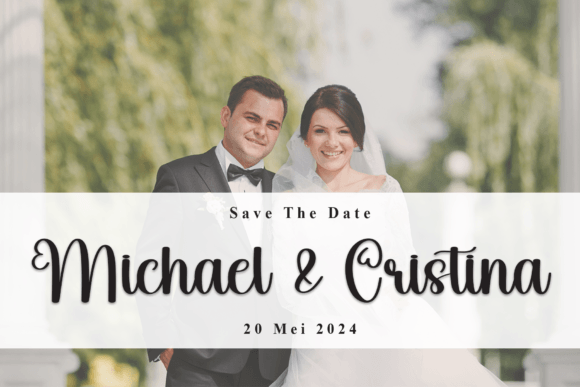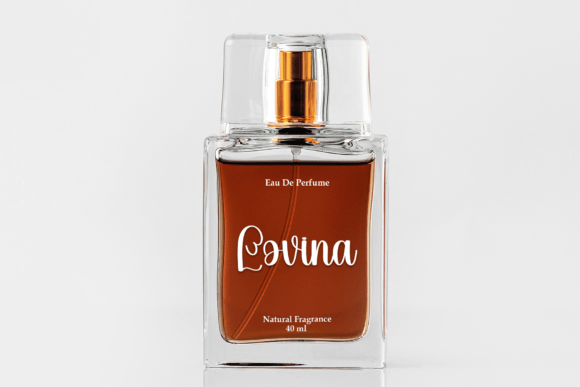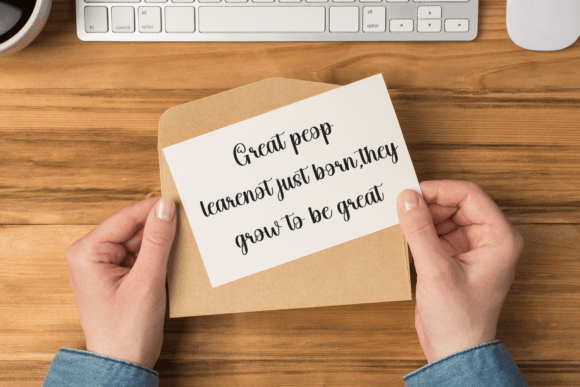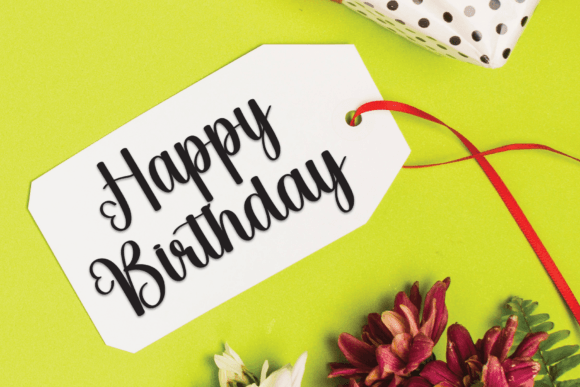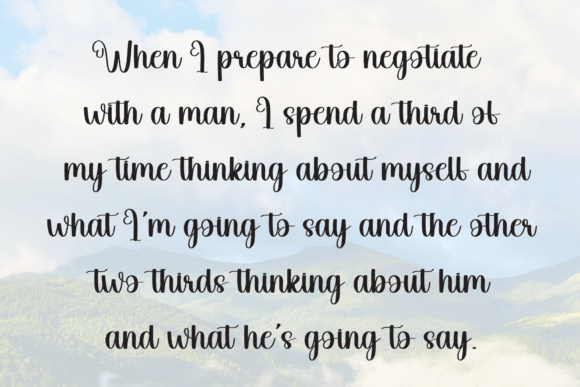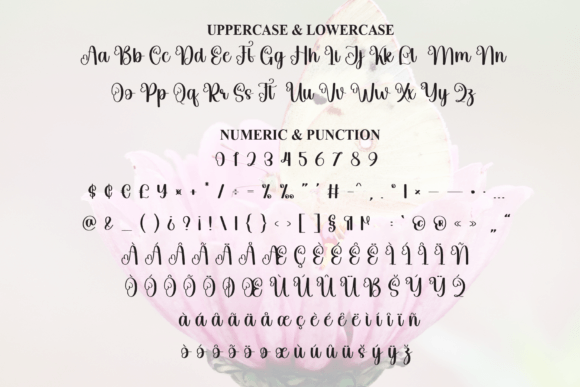
The Delightful Charm of Handwritten Fonts
Have you ever been stuck in a creative rut, staring at a blank page, searching for the perfect font to bring your design to life? We’ve all been there. But then, something magical happens – you stumble upon a font that speaks to your soul, and suddenly, the words flow effortlessly onto the page. For designers, discovering a new font can be a game-changer, and today, we’re excited to introduce you to the Baby Butterfly Font, a charming handwritten typeface that’s sure to captivate your heart.
This delightful font is perfect for adding a playful touch to your designs, whether it’s a wedding invitation, a heartfelt card, or a social media post. The Baby Butterfly Font’s friendly and cute appeal makes it an invaluable asset for designers who want to elevate their message while preserving an elegant whimsy. With its unique charm, this font is sure to bring a smile to your face and inspire your creativity.
Baby Butterfly Font Key Features
- Unique Characteristics: This font features a whimsical and playful design with delicate, hand-drawn elements and a mix of uppercase and lowercase letters.
Baby Butterfly Font Review
Overall, I was excited to dive into the Baby Butterfly Font and see what it had to offer. Here are my honest thoughts:
- Delicate and whimsical feel: The font has a lovely, airy quality that’s perfect for children’s books, nursery decor, or other projects where a touch of sweetness is needed.
- High-quality rendering: The font’s lines and shapes are crisp and well-defined, making it a pleasure to work with.
- Customization options: The font comes with a range of styles and weights, giving you plenty of flexibility to experiment with different looks.
- Limited legibility: At small sizes, the font can become difficult to read, which may be a problem for longer texts or body copy.
- Overly ornate: While the font’s delicate quality is charming, it can also feel overly ornate in some cases, which may not be suitable for all projects.
- No bold weight: The font’s bold weight is somewhat lacking, which may limit its use in certain contexts.
In conclusion, the Baby Butterfly Font is a lovely addition to any designer’s toolkit. While it may have some limitations, its unique charm and customization options make it a great choice for the right projects. With some careful planning and attention to legibility, this font is sure to bring a touch of magic to your designs.
The Baby Butterfly Font is perfect for:
- Wedding stationery and favors.
- Quirky and whimsical branding and marketing materials.
Remember to experiment with different font sizes, colors, and combinations to get the most out of the Baby Butterfly Font.
Alternatives to Baby Butterfly Font for Designers
Great Vibes Font is a beautiful, elegant script font that resembles a cursive handwriting style. It is perfect for use in wedding invitations, greeting cards, and other creative projects where a touch of elegance is required. Great Vibes Font is a more modern and refined alternative to Baby Butterfly Font, with a wider range of characters and better legibility.
Carolyna Pro Font is a modern calligraphy font that is both elegant and playful. It is ideal for use in branding, packaging, and advertising projects where a unique and eye-catching font is needed. Carolyna Pro Font is similar to Baby Butterfly Font in its whimsical and feminine style, but it has a more modern and sophisticated feel.
Q: Can I customize the Baby Butterfly Font to fit my specific design needs?